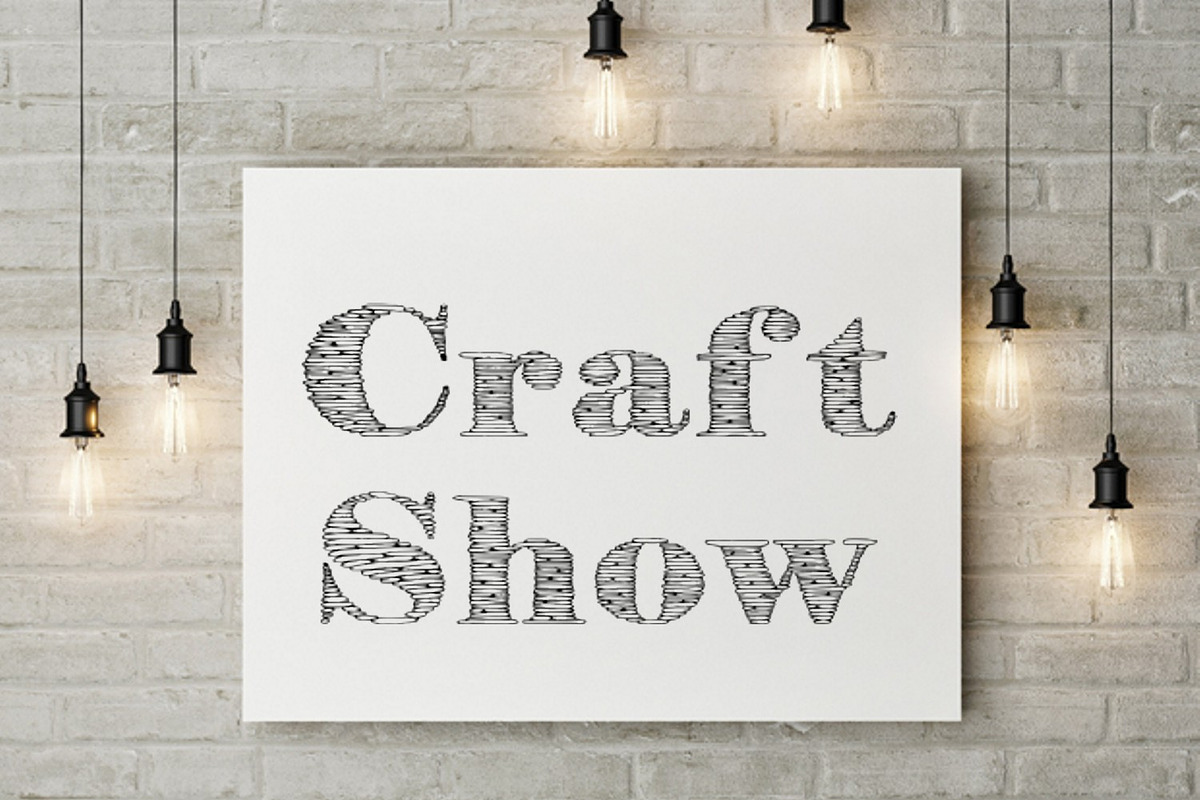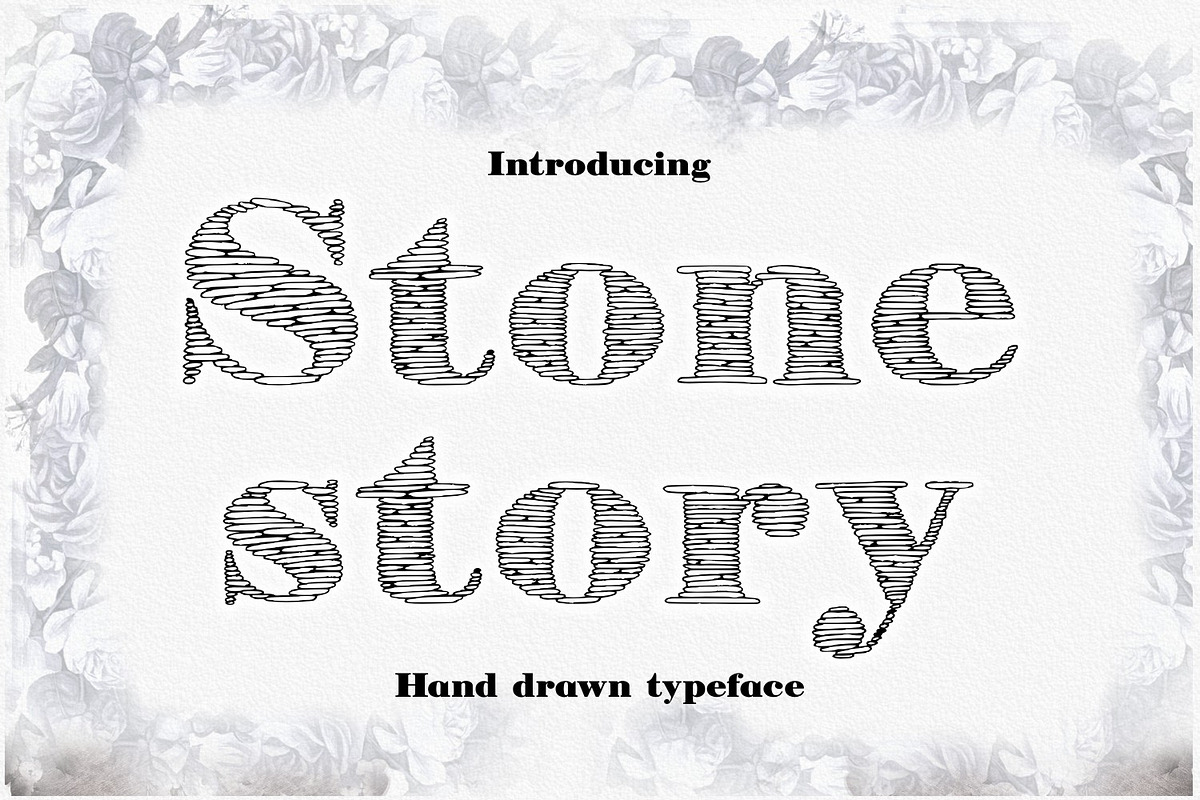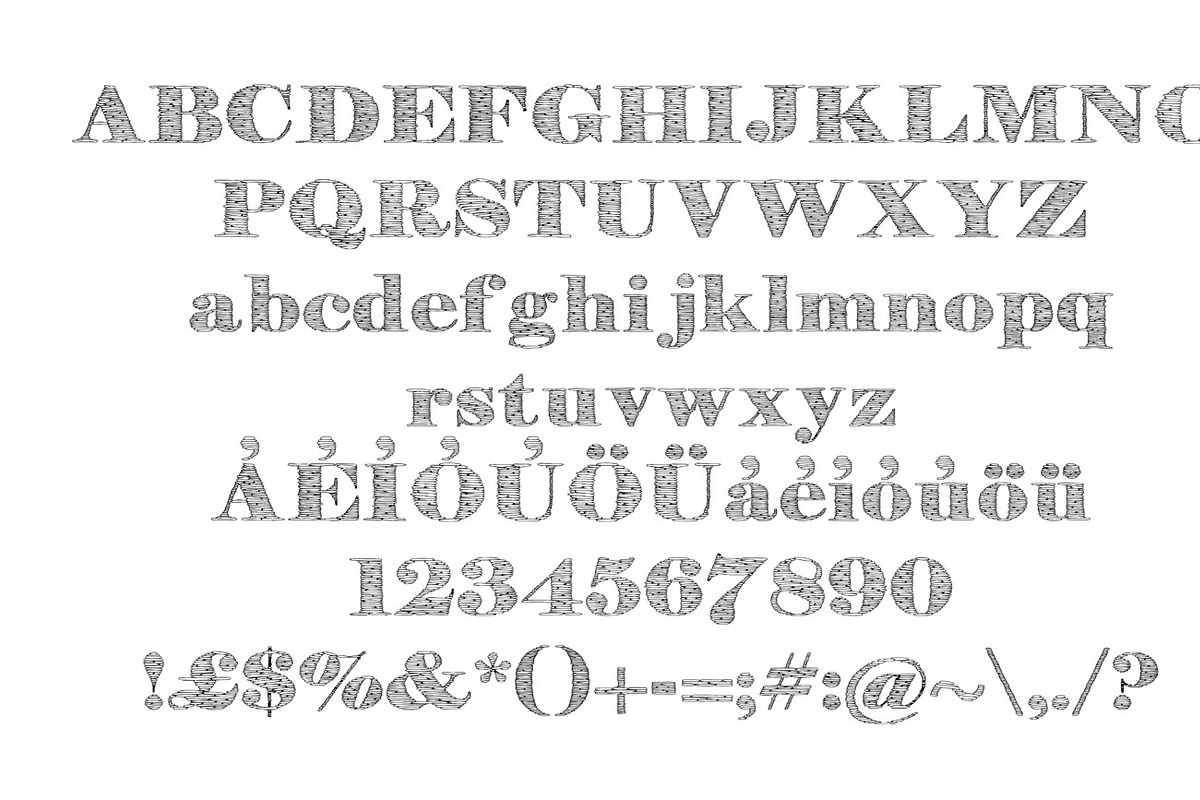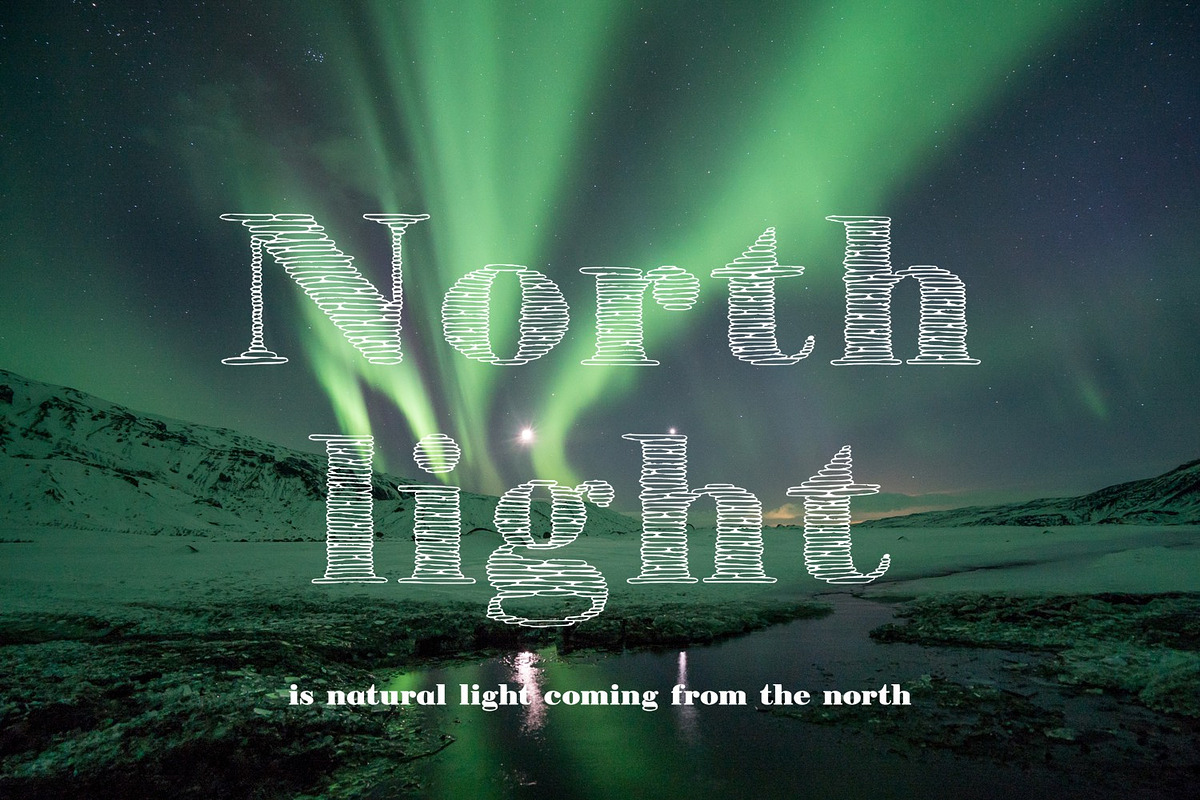
StoneStory Font
Introducing StoneStory hand crafted typeface.
Multi purpose use as it has upper cases, lower cases (extended with europian characters), numbers, punctuations, currency symbols and other signs.
Why StoneStory Font is worth a look
StoneStory Font by Digital Typeface Studio fits naturally into Branding, posters, packaging, typography.